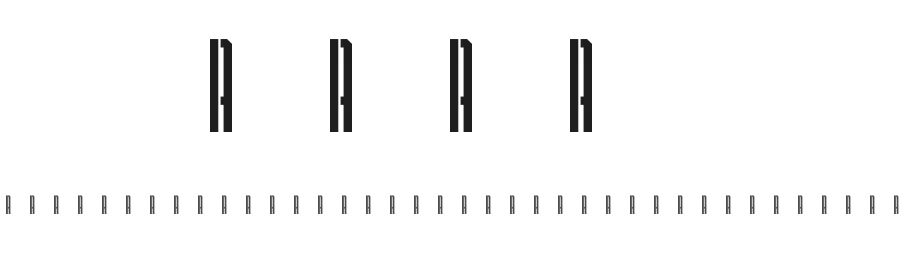
About Fridge Magnets Font
Fridge Magnets is a decorative font designed by Spork Thug Typography. It includes 47 glyphs, a regular weight, and TTF (TrueType) format. Fridge Magnets is free to download; check the license details on this page before commercial use. Decorative fonts like Fridge Magnets work best for logos, posters, packaging, and standout headlines.
Fridge Magnets Font is a decorative font that shines as a display or heading face. Pair it with a clean sans-serif or serif font for body text β the contrast creates a clear hierarchy while the two styles stay balanced and easy to read.
Fridge Magnets Font
Fridge Magnets Font is a decorative typeface by Spork Thug Typography, ideal for logos, invitations, branding, and creative projects.